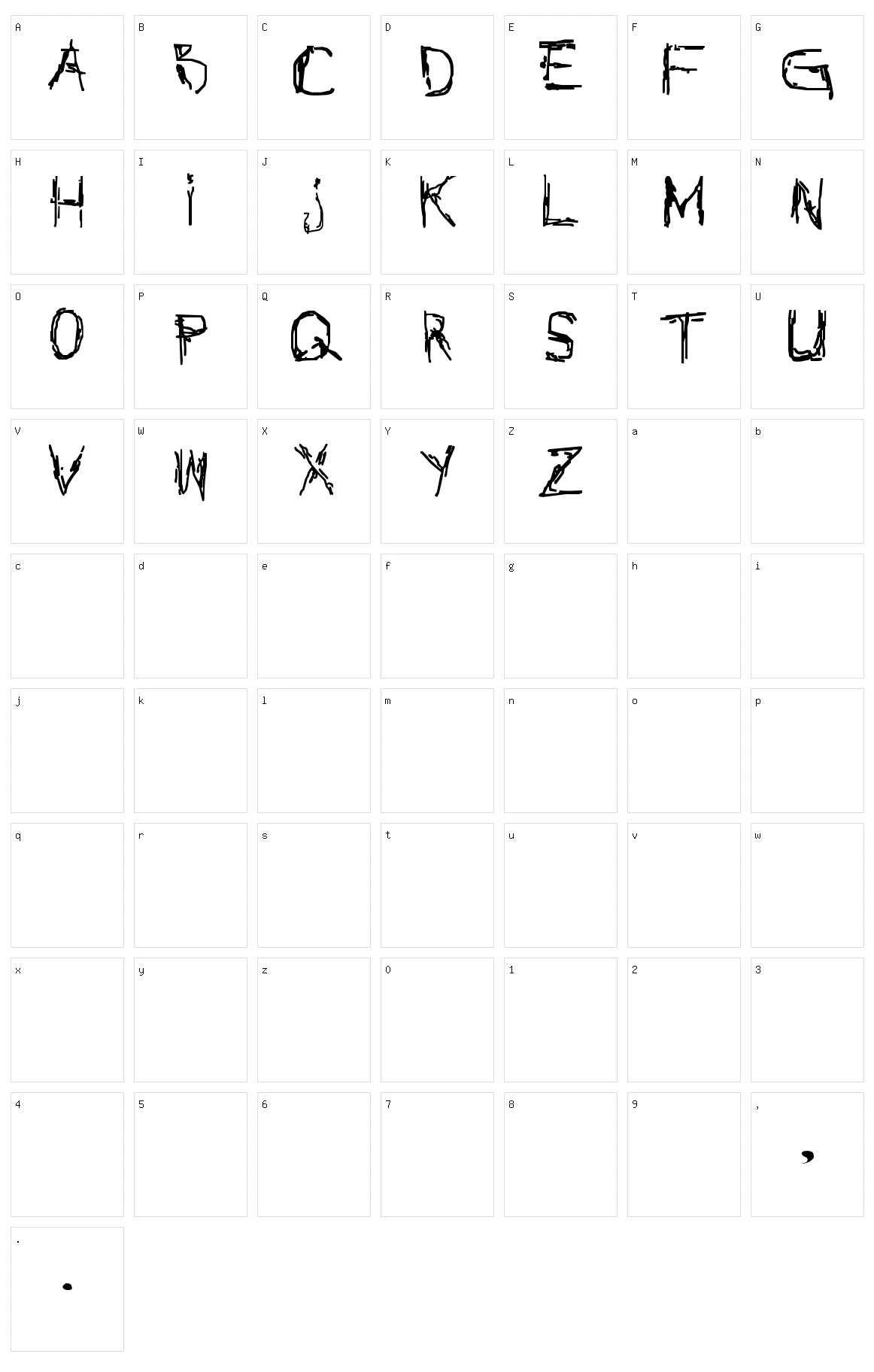
The free font Nothing Net is carefully designed by Mr.Fisk Fonts, showcasing a thoughtful balance of creativity and usability and falls under the Trash font style. When you download the ZIP file, it contains only 8.33 KB of font files, making it lightweight and quick to download. Please review the license details below to understand permitted usage and distribution rights. If license information is not available, we recommend using this font for personal projects only or contacting the author directly for commercial usage permissions.